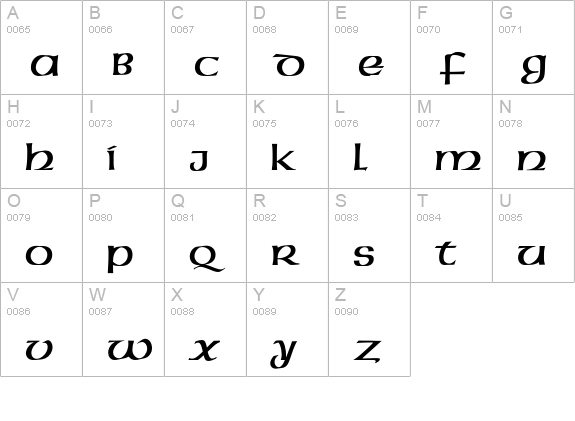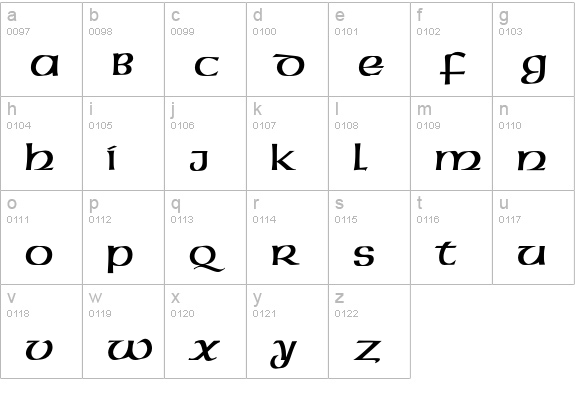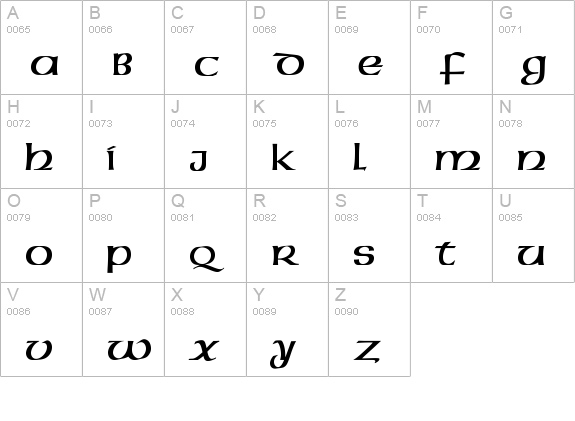
American Uncial D Font Details
American Uncial D font is a beautiful and elegant typeface that exudes a sense of timeless charm and sophistication. Its distinctive and graceful letterforms are inspired by traditional calligraphy, bringing a touch of classic elegance to any design project. The flowing strokes and unique serifs of American Uncial D make it a versatile choice for a wide range of applications, from wedding invitations to branding and packaging. What sets American Uncial D font apart is its ability to capture the essence of history and tradition while still feeling fresh and modern. Whether used for headlines, body text, or decorative elements, this font adds a touch of sophistication and refinement to any project. And the best part? American Uncial D font is available for free download at FontsMarket.com. So go ahead and add this exquisite typeface to your collection today and elevate your designs with a touch of timeless beauty.